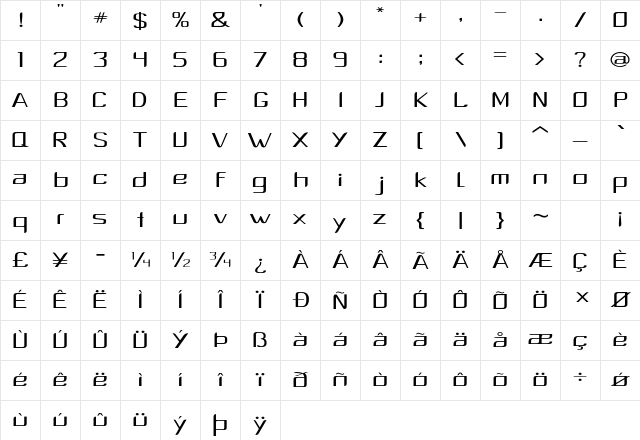
Corina Expanded Regular
Style: Expanded Regular
Corina Family
Corina Expanded Regular
Design Context for Corina
Corina is a composed and adaptable typeface that performs quietly and consistently across a wide range of design contexts.